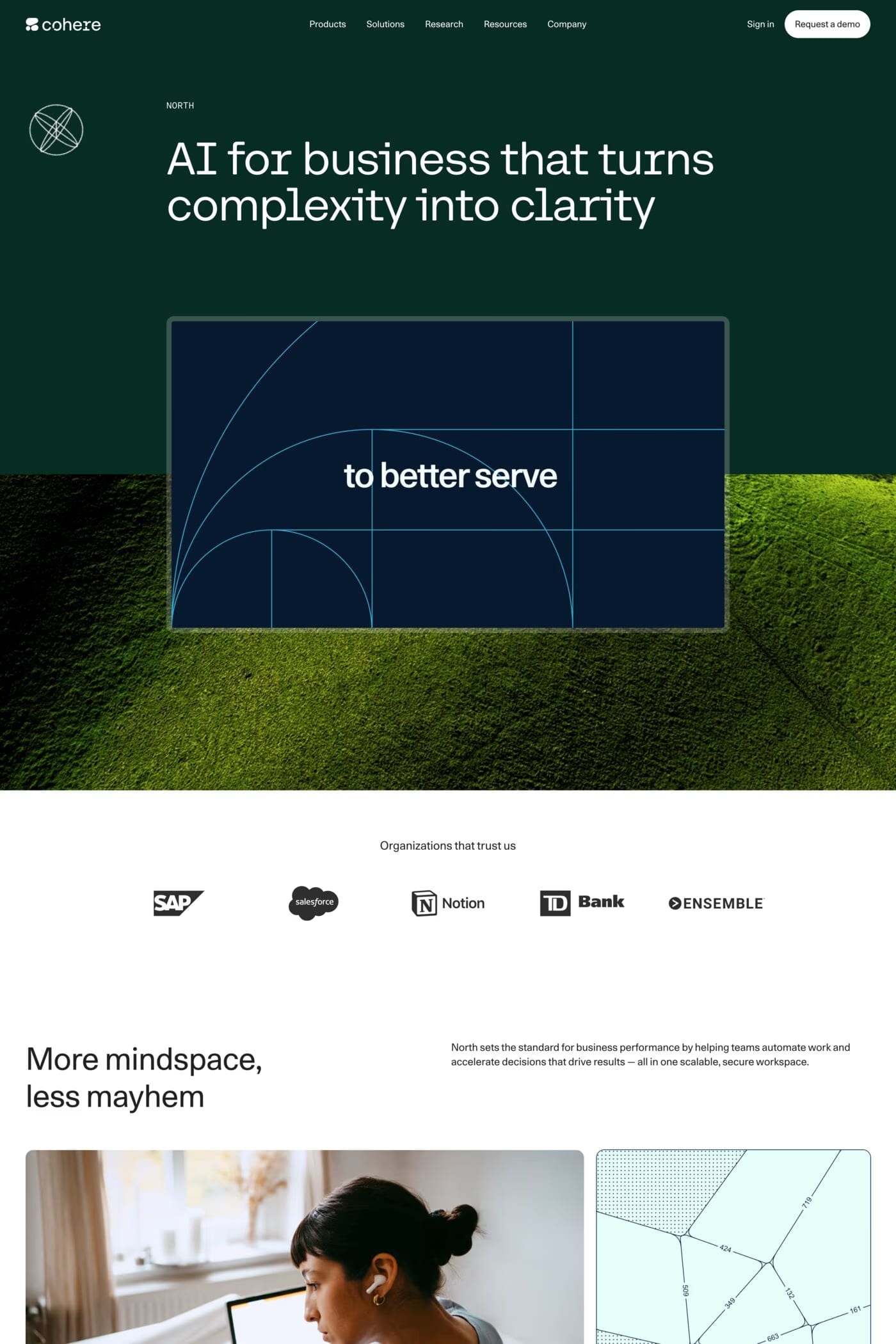
Unica 77 is a sans-serif typeface from Lineto.
LL Unica77 is the only digital revival of Haas Unica (1980) authorised by the typeface’s original designers, Team’77. It was re-mastered by team member Christian Mengelt from their own drawings.